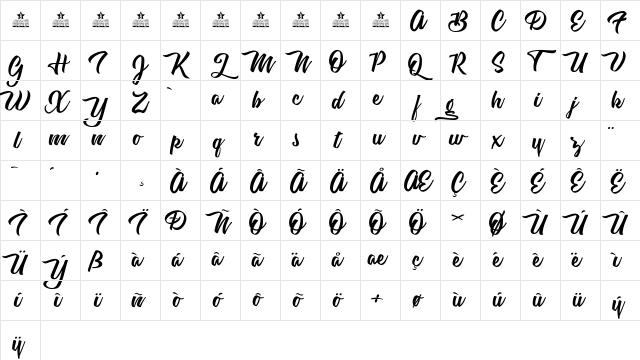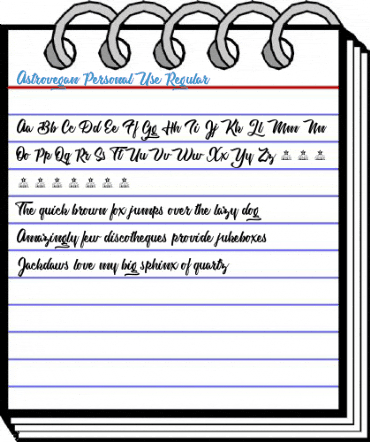
Complete Astrovegan Personal Use Regular glyph index. Displaying only characters natively supported by Astrovegan Personal Use Regular font.
Astrovegan Personal Use is a composed and adaptable typeface that performs quietly and consistently across a wide range of design contexts.